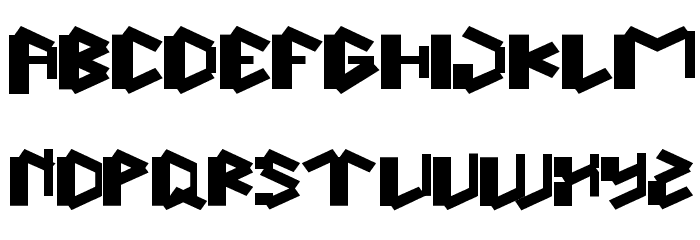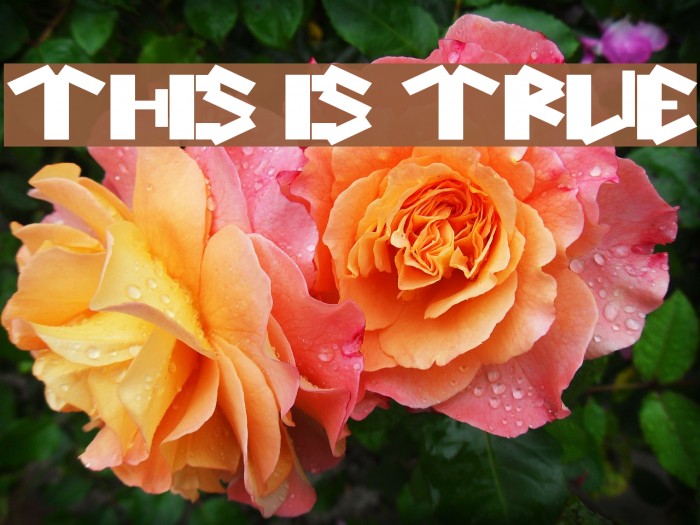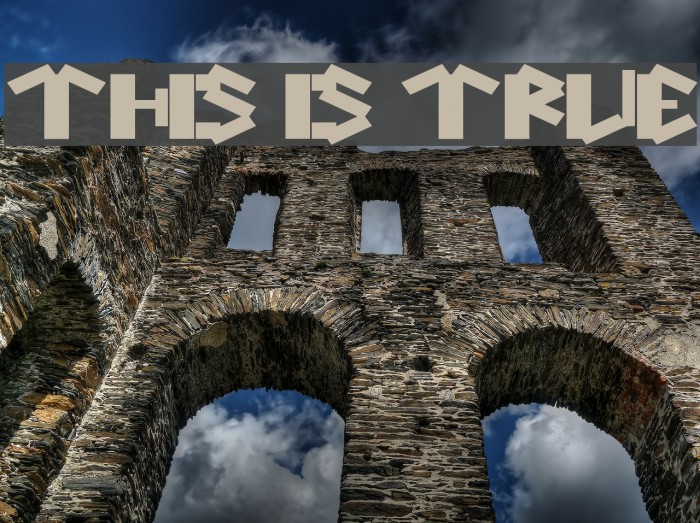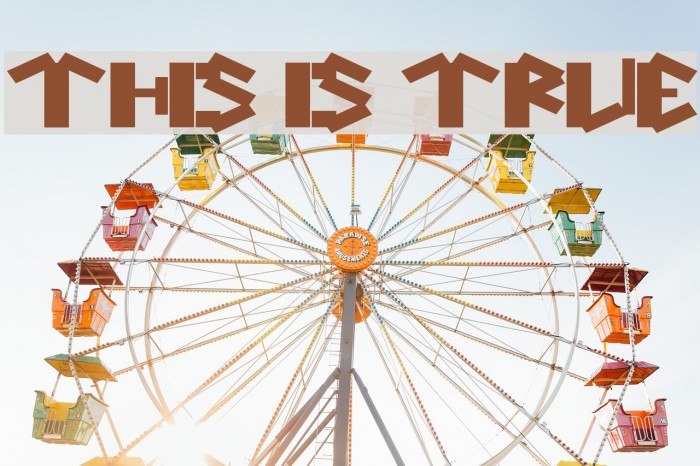
this is true Font
This font features a bold, geometric design with sharp angles and a blocky appearance, reminiscent of modern graffiti or urban art styles. Each character is constructed with thick, straight lines and pointed edges, giving it a dynamic and edgy look. The uppercase letters are particularly striking, with a consistent height and width that create a uniform appearance. The font's unique style makes it stand out, making it ideal for attention-grabbing designs. The overall aesthetic is both contemporary and artistic, suitable for projects that require a bold statement.
A bold, geometric font with sharp angles and a modern graffiti style.
- Proposed Projects: Ideal for urban-themed posters, album covers, streetwear branding, and digital art projects.